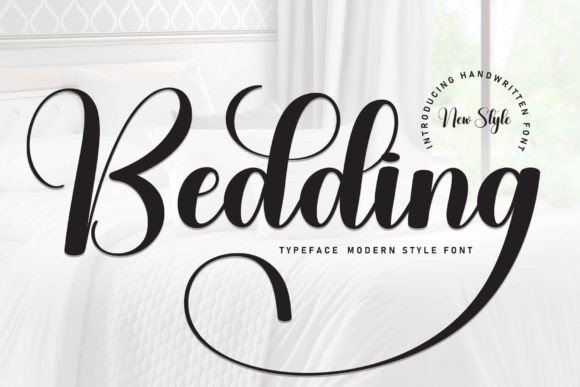
Introducing Bedding Font, the epitome of sweetness and friendship in the world of typography. This script font, created by the talented and visionary Creativewhitee, is more than just a collection of letters – it's a work of art meticulously crafted to captivate your senses.
Imagine a font that effortlessly brings your designs to life with its natural and unique style. Bedding Font is the perfect companion for any project, be it a heartfelt message, an elegant invitation, or a stunning logo. Its versatility knows no bounds, allowing you to explore endless possibilities and unleash your creativity like never before.
With Bedding Font, the only limit is your imagination. Its gentle curves and graceful strokes infuse every character with a sense of warmth and personality. Whether you're aiming for a romantic aesthetic, a whimsical touch, or a vintage vibe, this font effortlessly adapts to your vision, breathing life into your words.
Looking to add a touch of elegance to your next cursive tattoo? Look no further. Bedding Font is the answer to every ink lover's dream. With its calligraphic flair and seamless flow, it transforms words into enchanting works of art etched onto your skin forever. Embrace the power of self-expression and let your tattoo tell a story as unique as you are.
But Bedding Font is not just about aesthetics; it's about the emotions it evokes. Its sweet and friendly nature creates an instant connection with your audience, leaving a lasting impression. Whether you're designing a heartfelt greeting card or a captivating social media post, this font ensures that your message resonates deep within the hearts of your readers.
Experience the magic of Bedding Font today and let your designs speak volumes. Its keyword-rich composition ensures that your creations are easily discoverable by those seeking the best fonts for cursive tattoos. Stand out from the crowd and leave an indelible mark with this captivating and versatile font that sets your work apart.